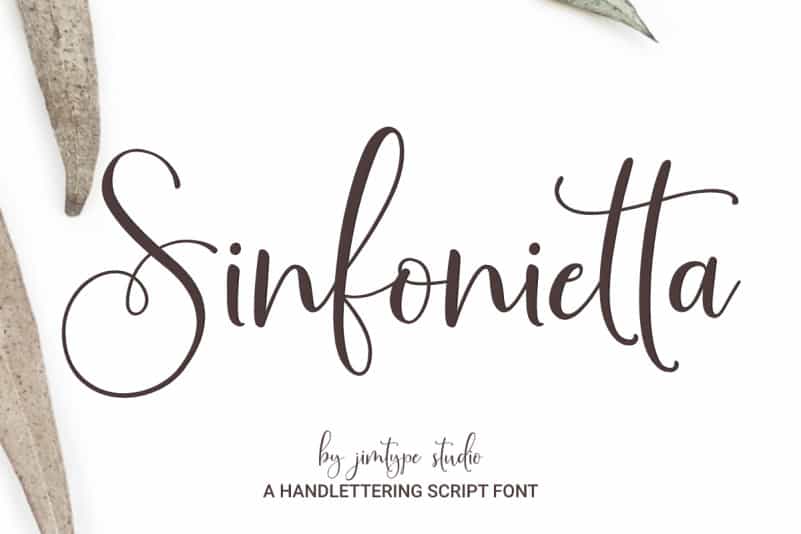
Sinfonietta Modern Script Font
Hello friend. Introducing Sinfonietta Font – A swashes modern handwritten script an elegant new typeface! This font is specially created for those of you who need a touch of elegance to design your projects next with perfect results and amazing.
Sinfonietta Font a very beautiful and interesting script, and comes with a perfect line for use for various purposes. Like titles, signatures, logos, correspondence, wedding invitations, letterheads, nameplate, labels, bulletins, posters, badges, Branding, Greeting Cards, etc.